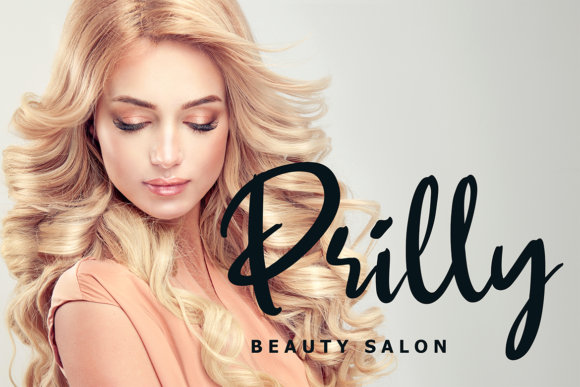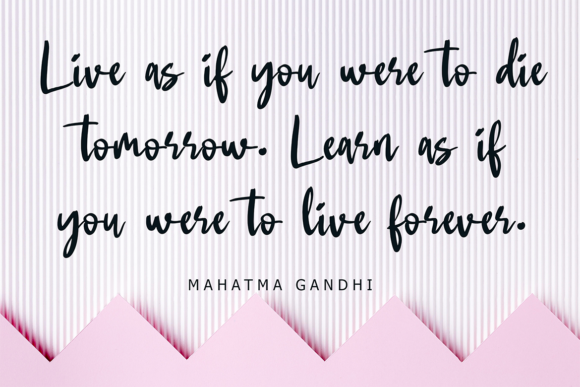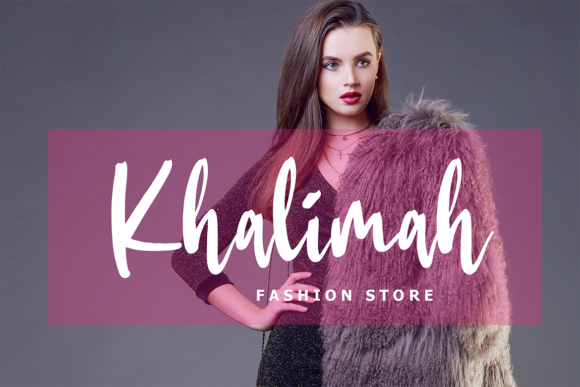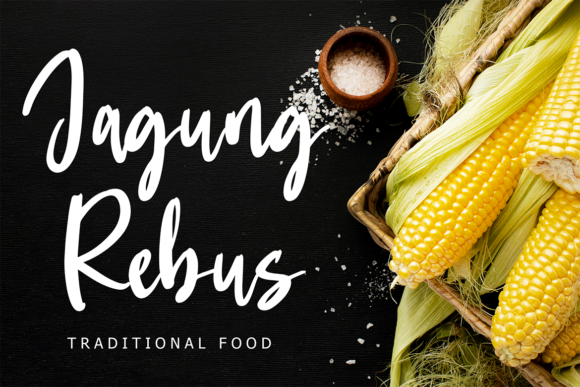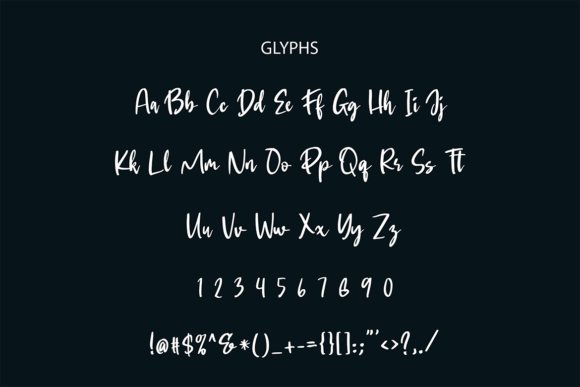
Gastya Font: Bringing Creativity to Life with its Unique Brush Style
Are you tired of using the same old fonts for your creative projects? Look no further than Gastya Font, an exciting handwritten font with a brush style that’s sure to add a touch of personality to your designs. With Gastya, you can take your ideas to the next level and make them come alive in a way that will leave a lasting impression on your audience.
What is Gastya Font?
Gastya Font is a unique and creative handwritten font that features a distinctive brush style. Its bold and expressive strokes make it perfect for adding a personal touch to a wide range of design projects, from branding and advertising to packaging and digital media. Whether you’re a designer, crafter, or simply someone who loves to get creative, Gastya Font is a versatile and exciting addition to your font collection.
Key Features of Gastya Font
- Handwritten with a Brush Style: Gastya Font features a distinctive brush style that gives it a personal and expressive feel.
- Bold and Expressive Strokes: The font’s bold strokes make it perfect for adding emphasis and personality to your designs.
- Versatile and Flexible: Gastya Font can be used for a wide range of design projects, from digital media to print materials.
- Easy to Read: Despite its bold and expressive style, Gastya Font is easy to read and understand, making it perfect for use in body text and headings.
How to Use Gastya Font in Your Designs
So, how can you use Gastya Font to bring your creative ideas to life? Here are a few ideas to get you started:
- Branding and Advertising: Use Gastya Font to add a personal touch to your brand identity and advertising materials.
- Packaging Design: Add a touch of personality to your product packaging with Gastya Font.
- Digital Media: Use Gastya Font in your digital media projects, such as social media graphics, blog posts, and video titles.
- Crafting and DIY Projects: Add a personal touch to your crafting and DIY projects, such as handmade cards, gift tags, and scrapbooking pages.
Tips and Tricks for Getting the Most Out of Gastya Font
Here are a few tips and tricks for getting the most out of Gastya Font:
- Pair it with Other Fonts: Gastya Font pairs well with a wide range of other fonts, so don’t be afraid to get creative and try out different combinations.
- Use it to Add Emphasis: Use Gastya Font to add emphasis to key words or phrases in your design.
In conclusion, Gastya Font is an exciting and versatile handwritten font with a brush style that’s perfect for adding a personal touch to your creative projects. With its bold and expressive strokes, Gastya Font is sure to make your designs come alive in a way that will leave a lasting impression on your audience. So why not give it a try and see the difference it can make?
Whether you’re a designer, crafter, or simply someone who loves to get creative, Gastya Font is a must-have addition to your font collection. So go ahead, add it to your most creative ideas and notice how it makes them come alive!